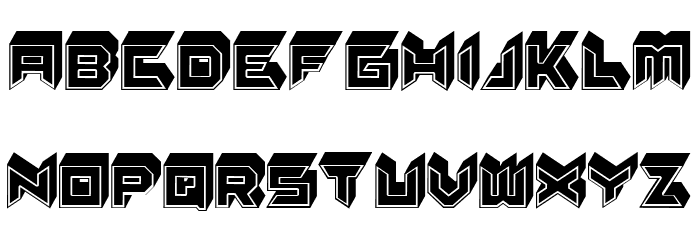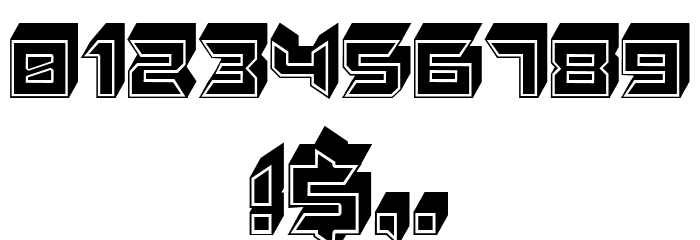
Serenada Filled Regular Font
This font features a bold and dynamic design with a filled, three-dimensional appearance. The characters are constructed with sharp angles and geometric shapes, giving them a futuristic and industrial feel. The thick strokes and solid fills create a strong visual impact, making it ideal for attention-grabbing headlines or logos. The uppercase and lowercase letters maintain a consistent style, while the numerals and special characters complement the overall aesthetic. The font's unique design elements make it stand out, offering a modern and edgy look.
A bold, geometric font with a three-dimensional, futuristic style.
- Proposed Projects: Ideal for use in branding, posters, video game titles, and any project requiring a modern, impactful typeface.